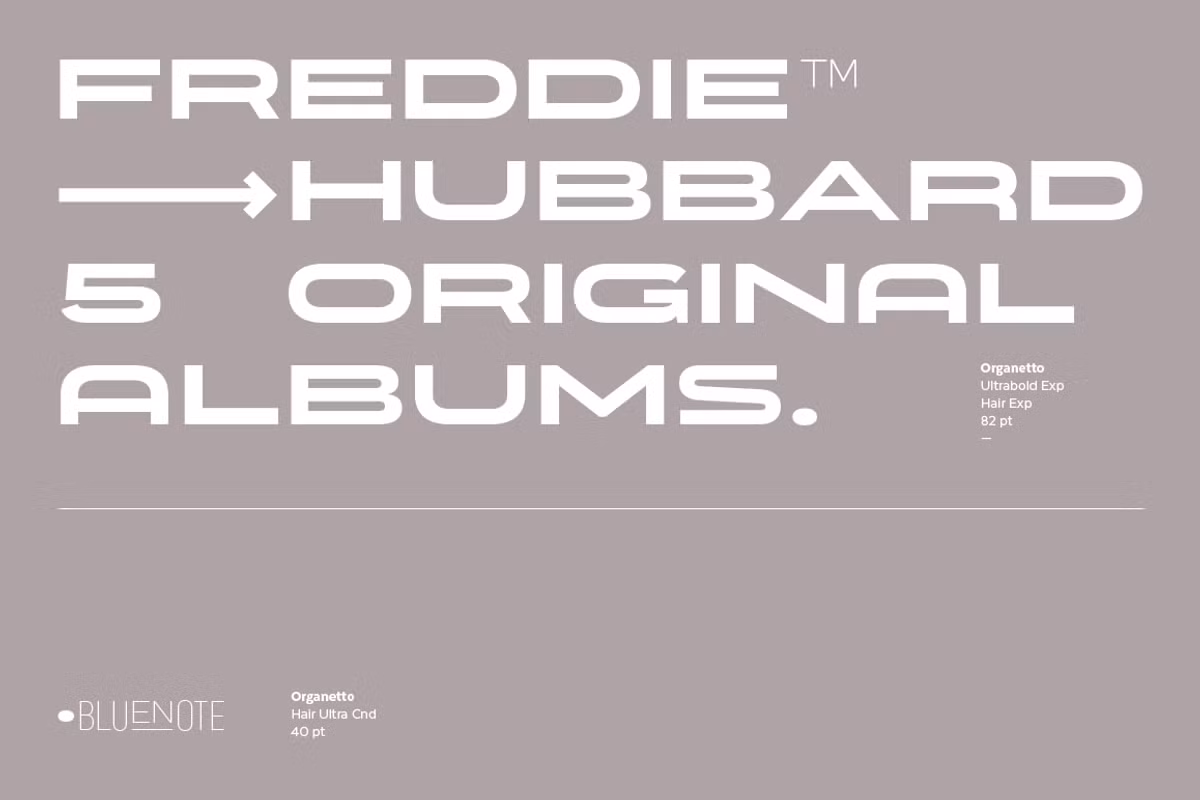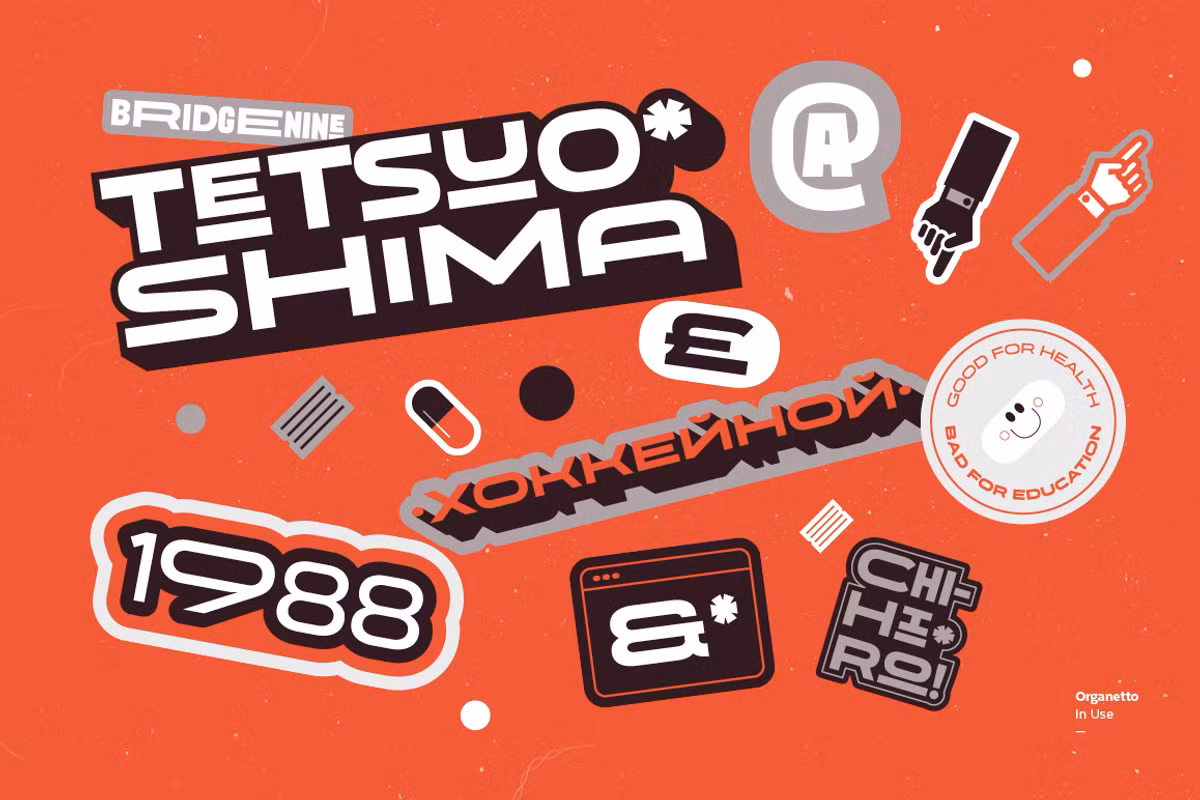
Organetto
Organetto: Versatile Sans-Serif Typeface Inspired by Art Deco Design
The Organetto font is really something special – it’s like a blast from the past, bringing back the glamour of the Art Deco era, but with a modern twist. Thanks to the latest digital technology, this font is not just beautiful, but also super versatile. With lots of different widths and weights to choose from, designers can use it for all sorts of projects, from fancy posters to sleek websites. Whether you’re a graphic designer or an art director, Organetto is a great choice because it’s both stylish and practical. It’s perfect for anyone who wants to add a touch of elegance and sophistication to their work, without sacrificing functionality.
Organetto typeface design showcasing Art Deco influences
Organetto captures the essence of Art Deco design.
Design Style of Organetto
The look of Organetto is clearly inspired by the classic lettering you see on old Art Deco posters. These posters were famous for their bold and geometric style. Organetto is a sans-serif font with modern proportions and straight edges, which gives it a clean and sophisticated feel. By combining these styles, Organetto not only nods to the past but also stays fresh and relevant in modern design. This blend of old and new is what makes Organetto stand out. The Art Deco movement was all about bold lines and geometric shapes, and Organetto captures that essence perfectly. At the same time, its modern twist keeps it from looking outdated. Overall, Organetto’s design is a great example of how classic styles can be reimagined for the present day.
The Organetto font has a really neat geometric style that makes it super useful for lots of different things, like designing logos, creating brands, or laying out editorials. What’s really great about it is how clear and elegant it looks, which helps it grab your attention without being too hard to read. That’s why it’s perfect for using in headings or for the main text – it gets the job done and looks good doing it.
Character Sets and OpenType Features
What makes Organetto really special is the huge number of characters it has – we’re talking 397 in total. This means it can be used to write in 180 different languages, which is amazing for projects that need to be understood by people all around the world. Because it can handle so many languages, designers don’t have to worry about their work looking bad or being hard to read, even when they’re working on something that needs to be translated into lots of different languages. This makes Organetto a really versatile choice for anyone working on international projects.
OpenType features of Organetto font displayed
Organetto offers extensive OpenType features for design flexibility.
Additionally, Organetto includes several OpenType features that enhance its usability. Designers can take advantage of three sets of alternate characters, which provide flexibility in design choices. The inclusion of catchwords and titling options allows for creative expression and customization, making every project unique.
Use Cases for Organetto
Organetto is really flexible, so it can be used in lots of different design projects. Let’s take a look at some of the ways it can be used.
• Branding and Logos: The bold and clean lines of Organetto make it an excellent choice for creating memorable logos and brand identities.
• Posters and Ads: Organetto’s rich Art Deco history makes it perfect for posters, flyers, and advertisements that need to stand out.
• Editorial Design: Whether for magazines or online publications, Organetto’s readability and elegance make it suitable for both headings and body text.
• Web Design: Its modern proportions and versatility make it ideal for digital interfaces, ensuring a seamless user experience.
Branding example using Organetto typeface
Organetto’s versatility shines in branding applications.
When we think about typography, one thing that can really make a design stand out is pairing fonts in a way that works well. Organetto is a great example of a font that can be paired with lots of different typefaces, which makes it really versatile. So, what are some good ways to pair Organetto with other fonts? Let’s take a look at some suggestions.
• Organetto and Serif Fonts: Pairing Organetto with a classic serif font like Times New Roman or Garamond can create a striking contrast that balances modernity with tradition.
• Organetto and Script Fonts: For a more playful look, consider pairing Organetto with a script font such as Pacifico or Great Vibes to add a touch of elegance.
• Organetto with Other Sans-Serifs: Using Organetto alongside another sans-serif typeface, like Helvetica or Futura, can create a clean, cohesive design, especially in branding applications.
Organetto is not just a font, it’s a powerful design tool that combines the classic style of Art Deco with modern functionality. What makes it so special is its versatility – it comes in multiple widths and weights, and has a huge character set, making it perfect for a wide range of design projects. Whether you’re working on a brand’s identity, designing a magazine or website, Organetto has the features and style you need to make your work really stand out. By using Organetto in your next project, you can add a touch of elegance and sophistication to your typography, turning it into a work of art that will catch people’s attention. With its unique blend of old and new, Organetto is the perfect choice for designers who want to create something truly special.